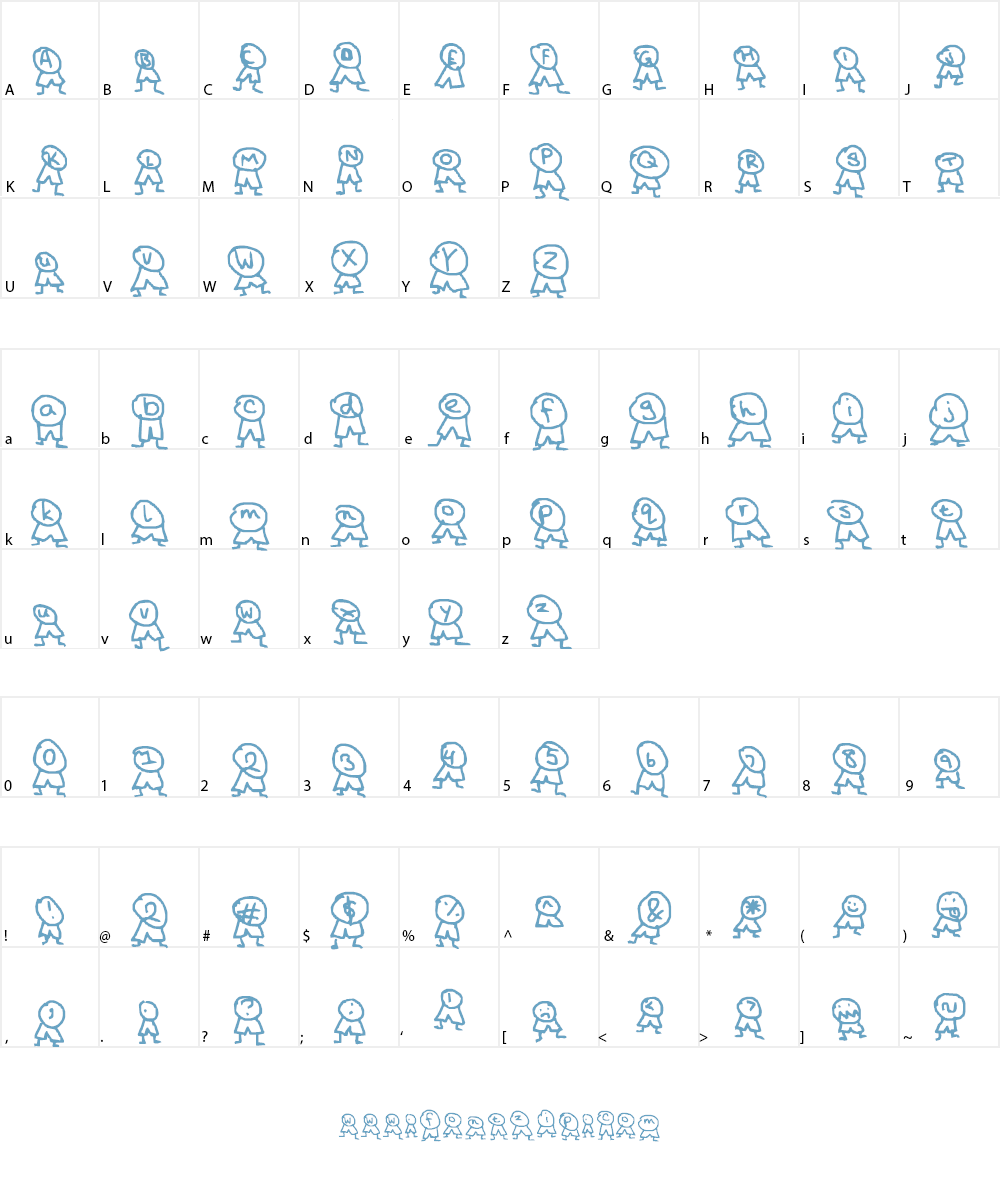
When I was making another font, I thought about how when I was in prep,,grade 1 and 2 I was in an advanced learners class. My teacher always used to ask, "Did you have smarties for breakfast this morning?" We were smartiepants